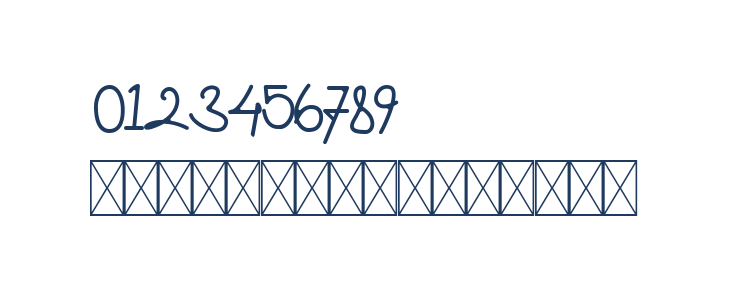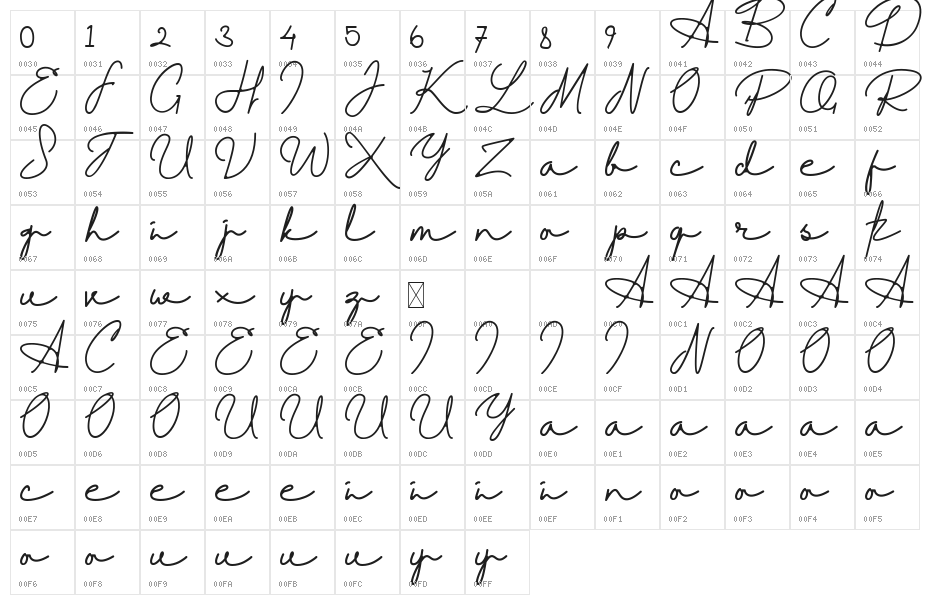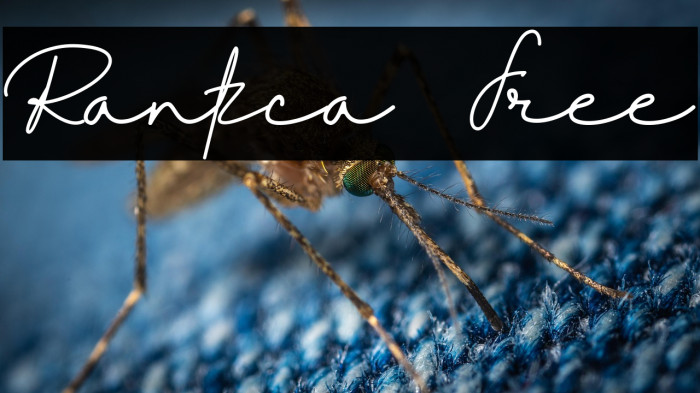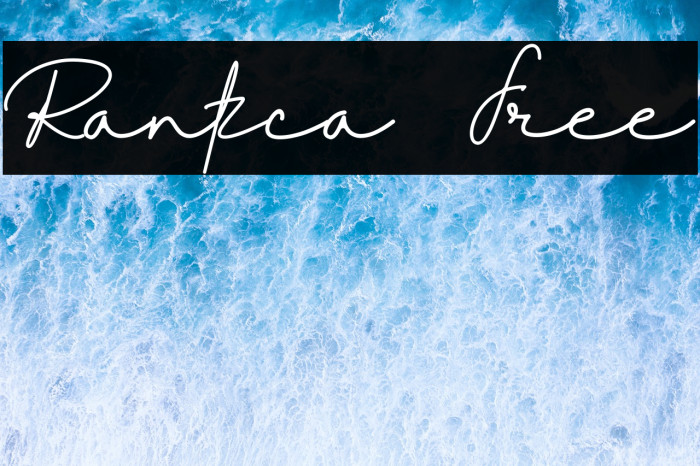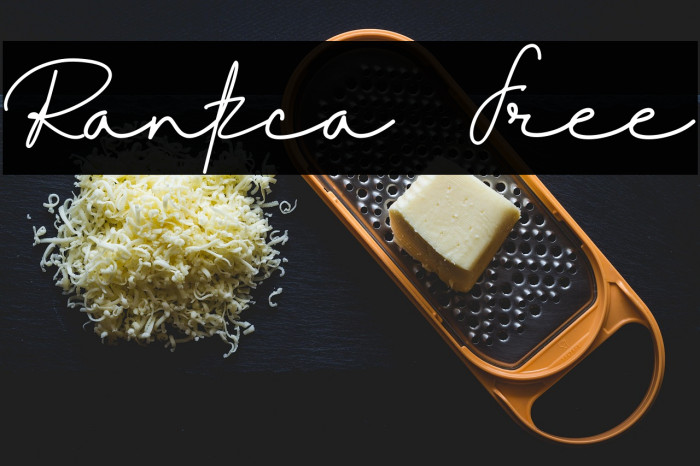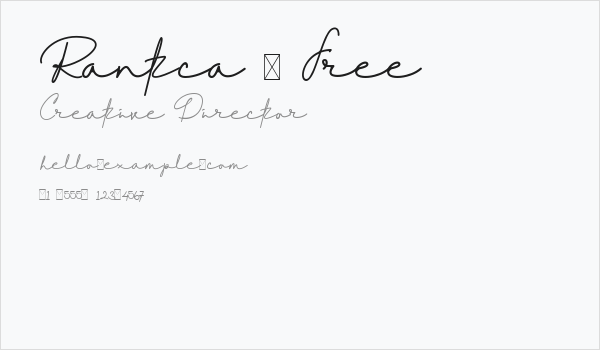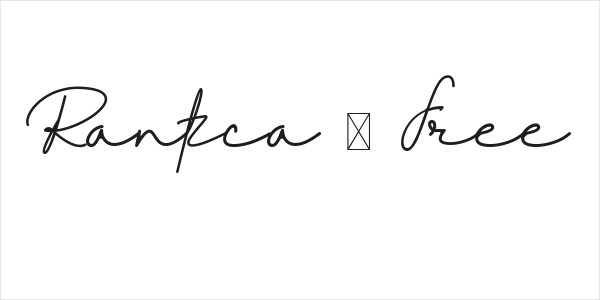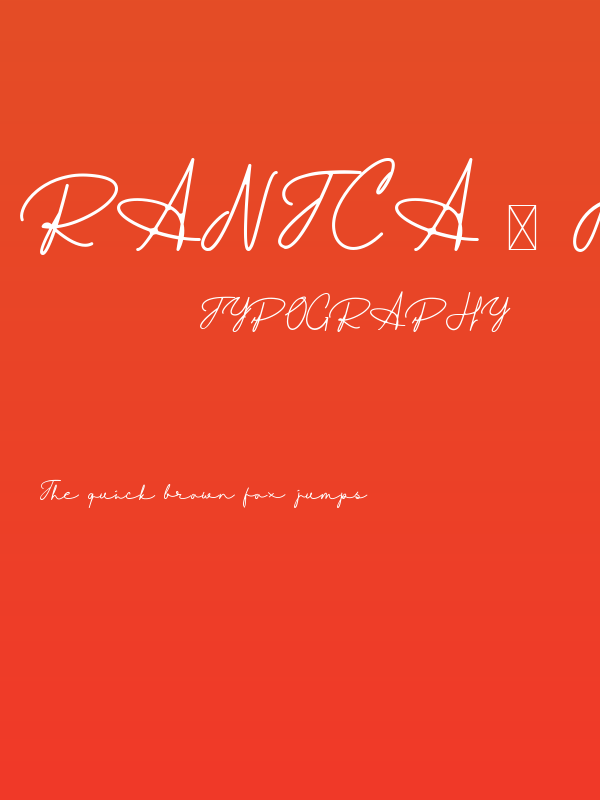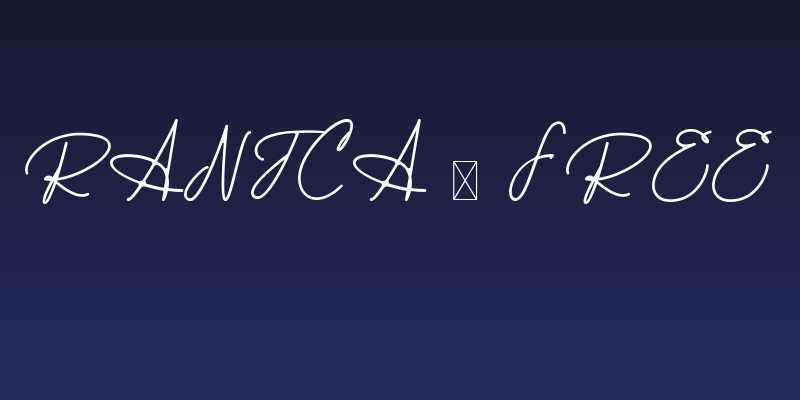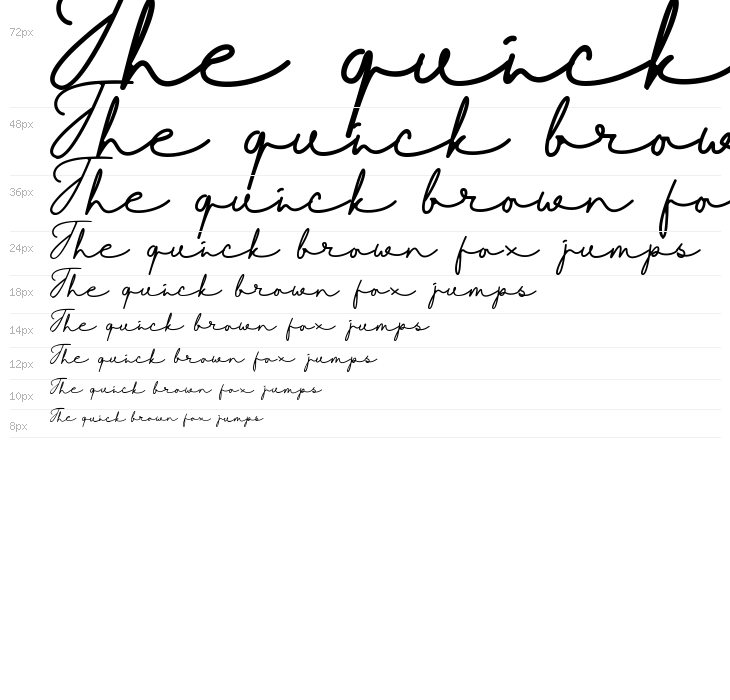
Rantca - Free Font
Rantca - Free Description
This font features a flowing, cursive style that mimics elegant handwriting. The letters are interconnected, creating a seamless and fluid appearance. The uppercase characters are slightly more elaborate, with loops and curves that add a touch of sophistication. The lowercase letters maintain a consistent height, contributing to a harmonious look. The numerals are distinct, with a playful yet refined design that complements the overall aesthetic. The special characters are integrated smoothly, maintaining the font's cohesive style. This font is ideal for projects that require a personal touch, such as invitations, greeting cards, or branding materials.
| Proposed Projects | Ideal for invitations, greeting cards, branding materials, and any project requiring a personal touch. |